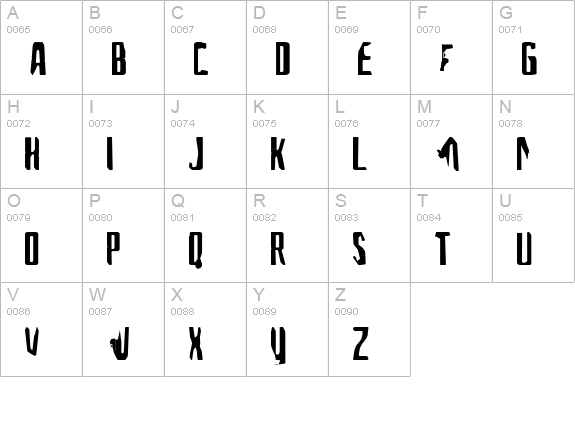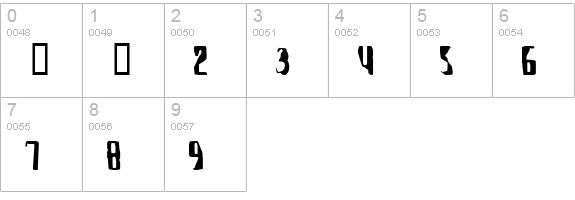
A Font For The Computer People Font Details
Introducing "A Font For The Computer People," a remarkable typeface that caters to the discerning tastes of tech-savvy individuals. This font is the perfect fusion of sleek modernity and classic elegance, specifically designed to enhance the visual aesthetic of any digital project. Crafted with meticulous attention to detail, "A Font For The Computer People" boasts a versatile range of letterforms that effortlessly blend together, resulting in a harmonious and visually captivating typography. Its clean lines and well-defined curves lend a sense of professionalism and sophistication, making it an ideal choice for websites, presentations, digital advertisements, and beyond. But what truly sets "A Font For The Computer People" apart is its accessibility to all. We are proud to offer this font absolutely free, allowing designers, developers, and computer enthusiasts alike to elevate their creations without any financial barriers. You can conveniently download "A Font For The Computer People" at FontsMarket.com, a trusted platform that offers a vast collection of high-quality fonts for enthusiasts and professionals alike. Whether you're a seasoned designer or an aspiring computer whiz, "A Font For The Computer People" will undoubtedly become your go-to typeface. Its versatility, legibility, and contemporary appeal make it suitable for a wide range of applications, ensuring that your designs stand out from the crowd. Embrace the power and beauty of "A Font For The Computer People" today, and watch as your digital creations come to life with an unparalleled level of sophistication and style. Experience the freedom of creativity by downloading this remarkable font from FontsMarket.com, where excellence and affordability meet seamlessly.